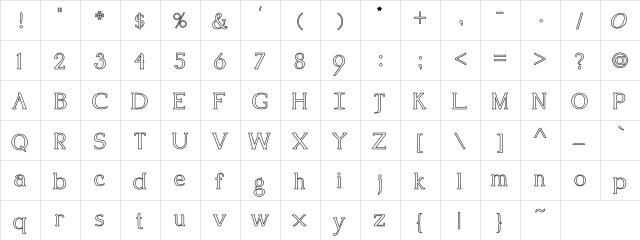
Ken Hollow Regular
Design Context for Ken Hollow Typeface
Ken Hollow takes a measured approach to typography — its balanced proportions and neutral character make it a reliable workhorse for both digital and print work.